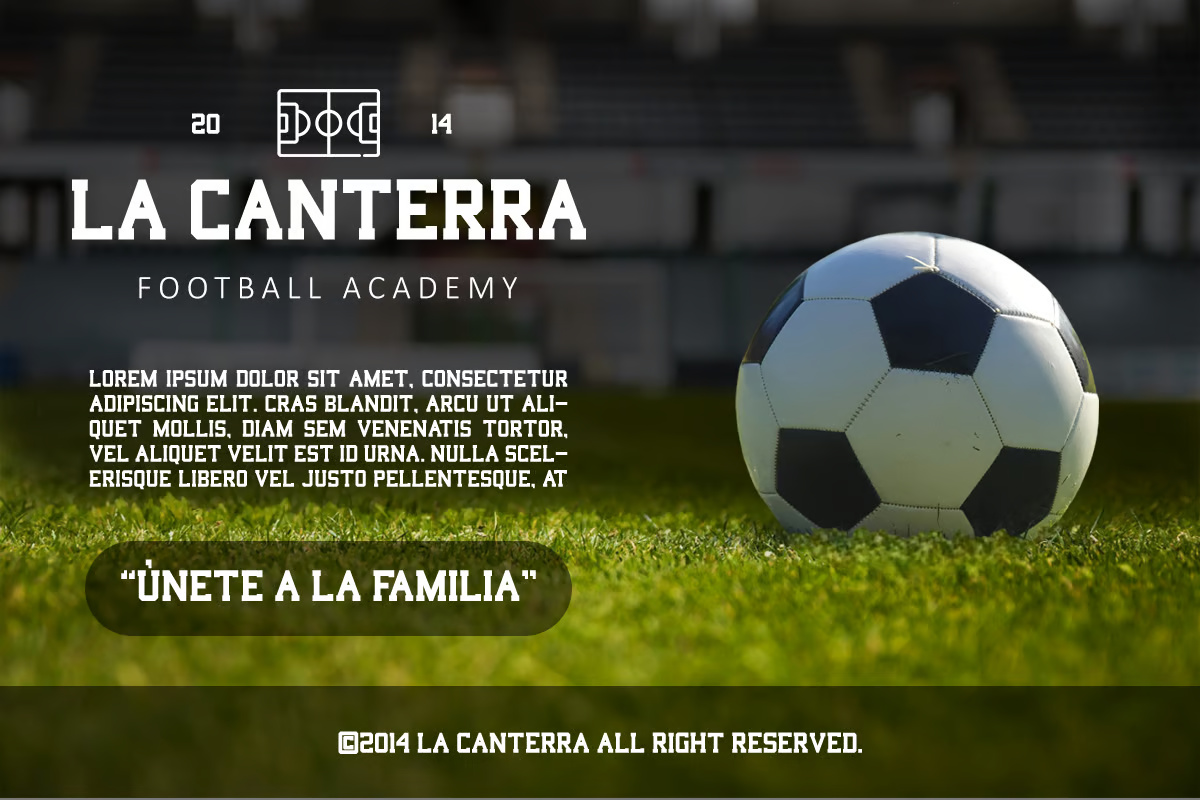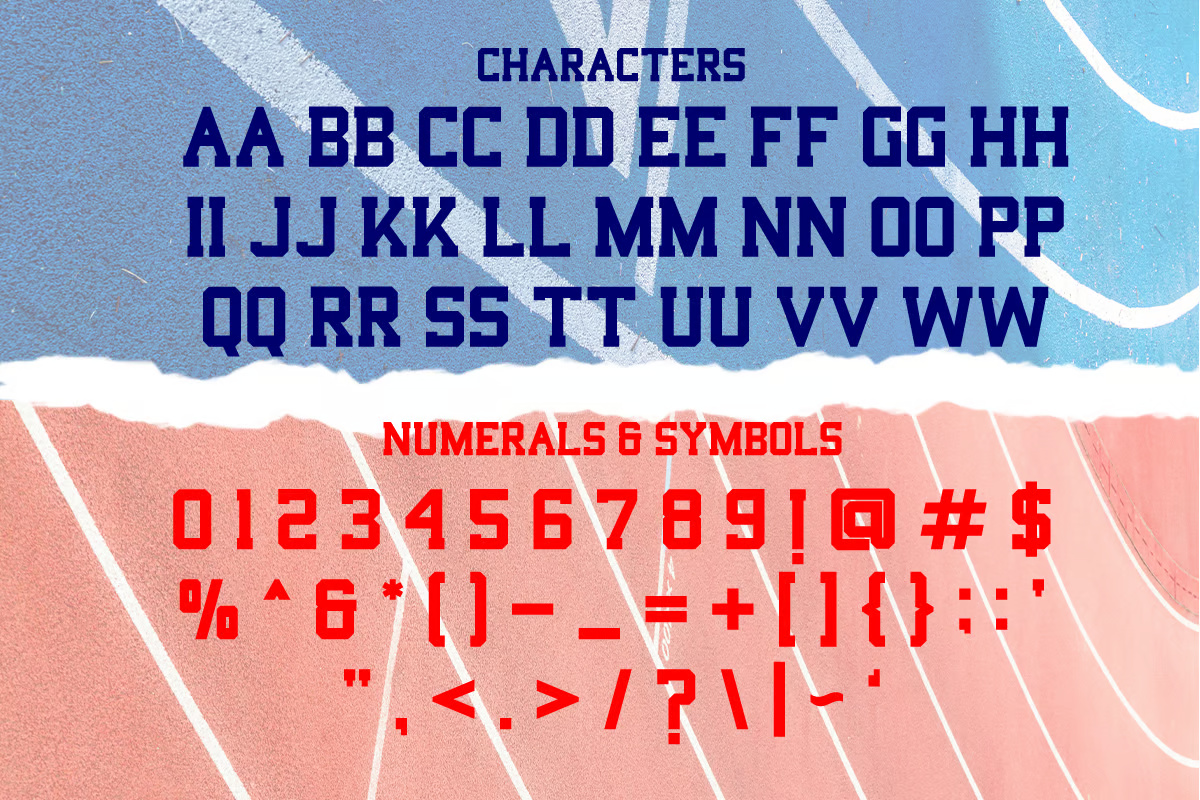
Xtreme Serif Font
Elevate your designs with Xtreme Serif Font, a sophisticated and modern typeface designed to bring elegance and style to your projects. With its clean lines, refined curves, and striking presence, this font is perfect for a variety of creative applications, including quotes, logotypes, magazine headers, branding, invitations, and more. Its versatility ensures that your text commands attention while maintaining a polished and professional look.
Xtreme Vintage Serif Font